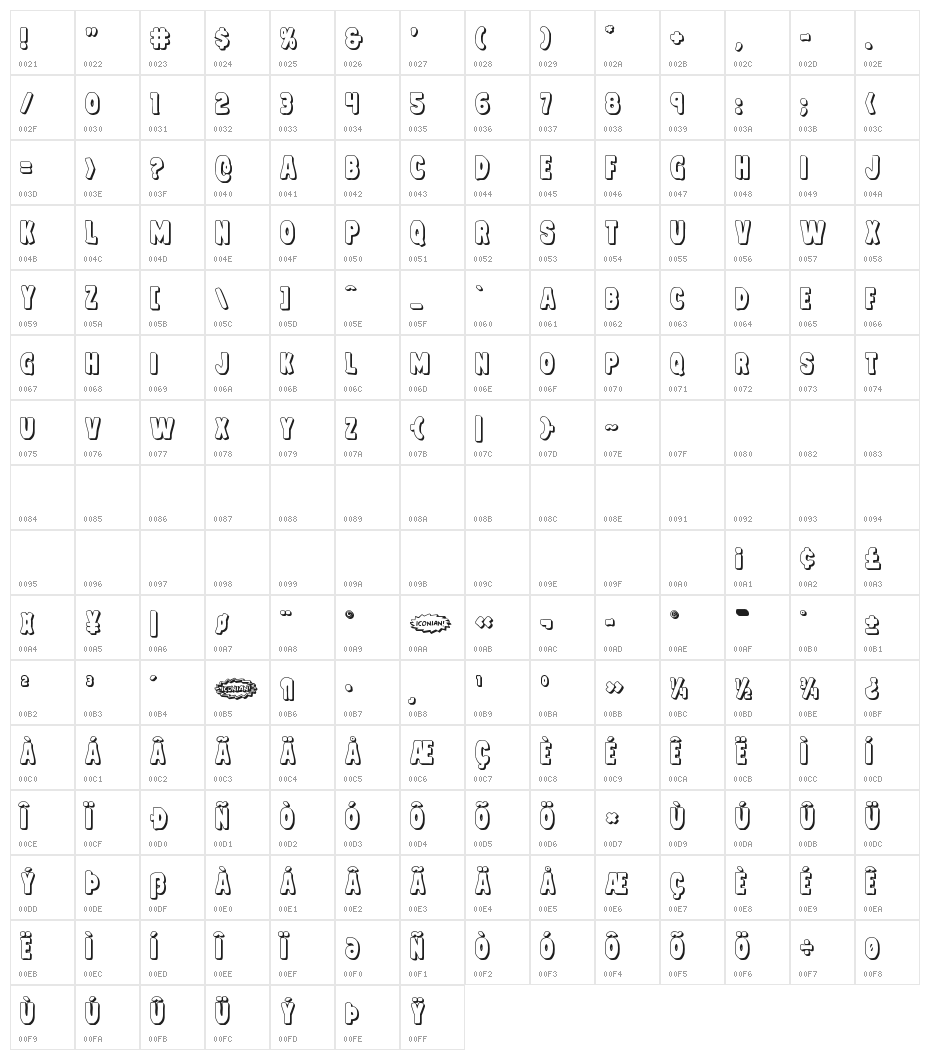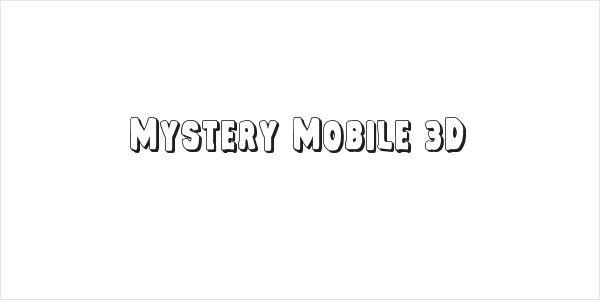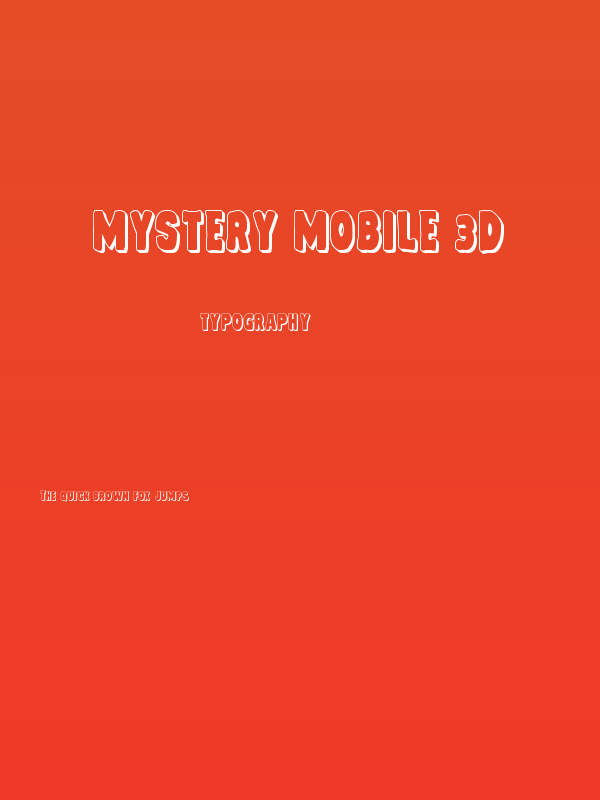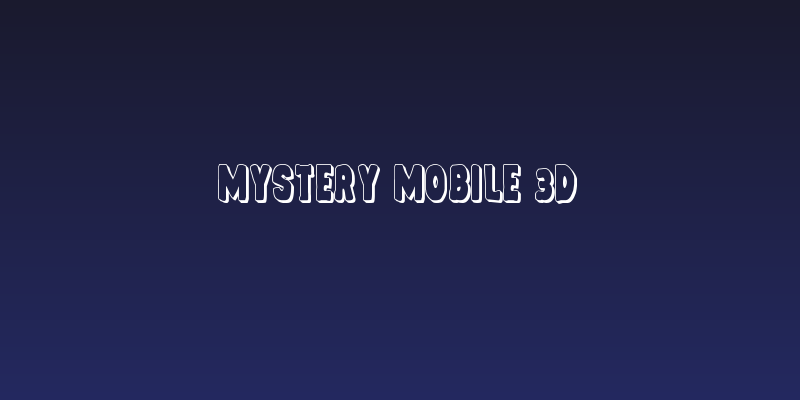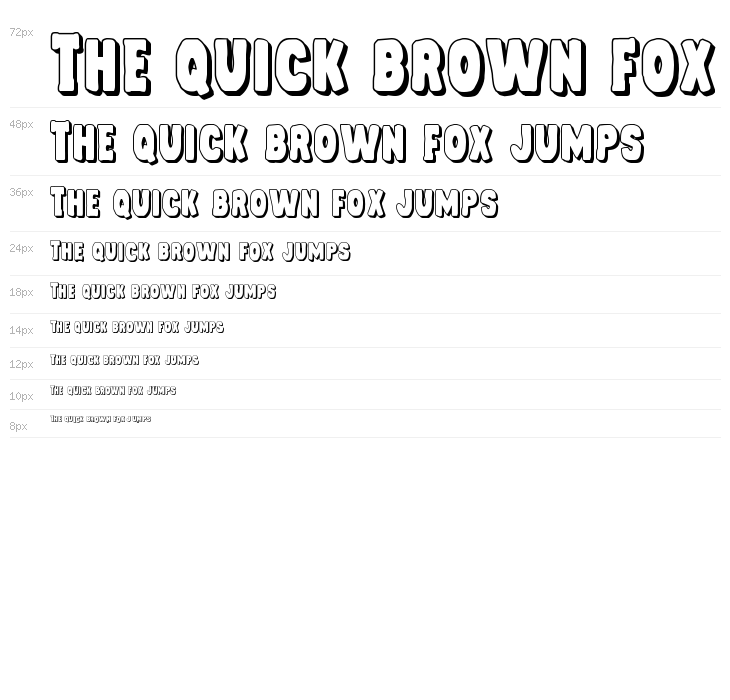
Mystery Mobile 3D Font
Mystery Mobile 3D Description
This font features a bold, playful 3D style with a cartoonish appearance. The letters are thick and rounded, with a shadow effect that gives them a three-dimensional look. The characters are evenly spaced, providing a balanced and cohesive appearance. The font includes both uppercase and lowercase letters, numbers, and a variety of special characters. Its unique style makes it stand out, perfect for projects that require a fun and engaging visual element.
| Overall Style | Playful, Cartoonish, 3D |
| Proposed Projects | Ideal for children's books, comic strips, playful branding, and eye-catching posters. |